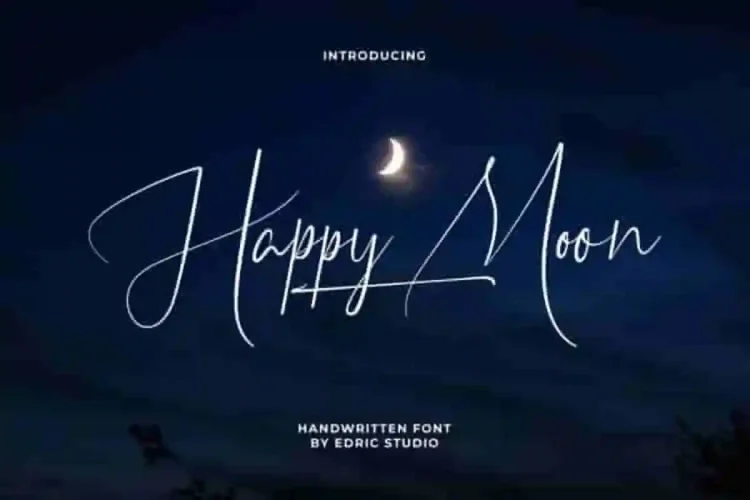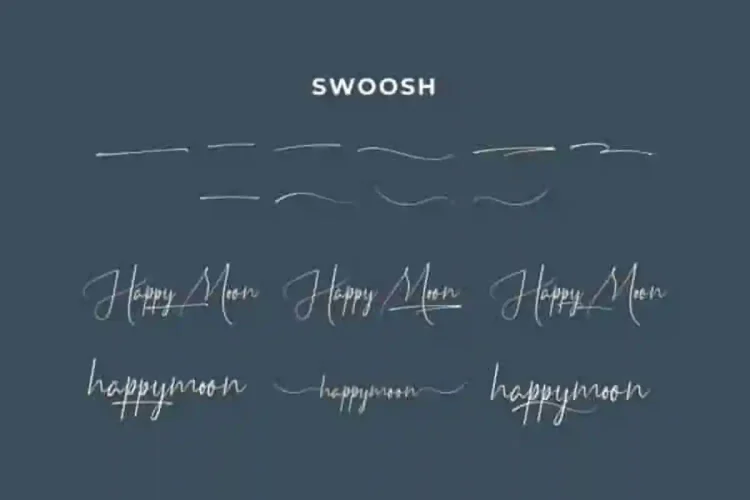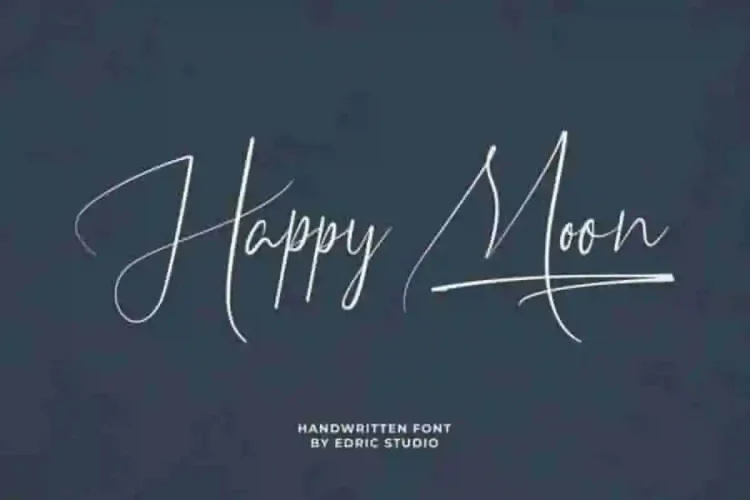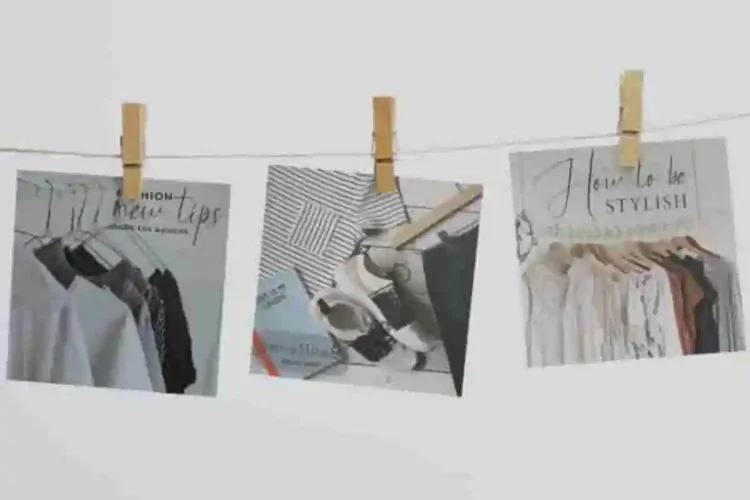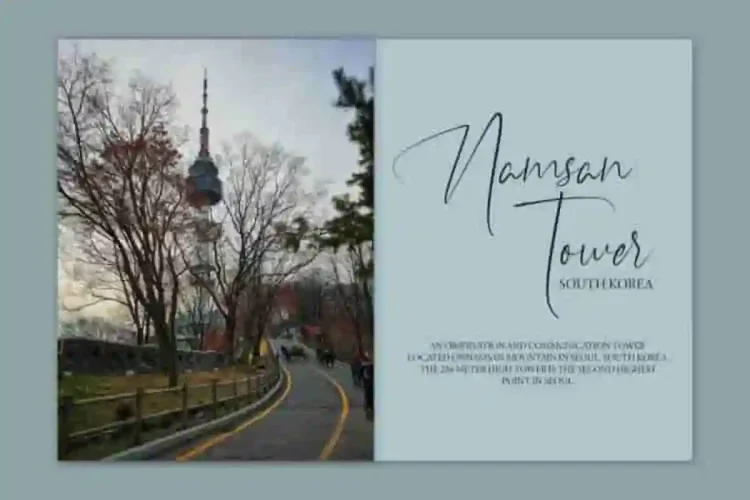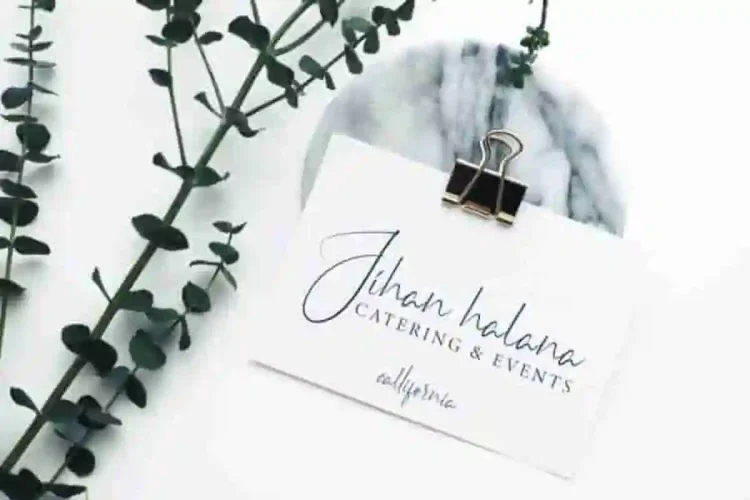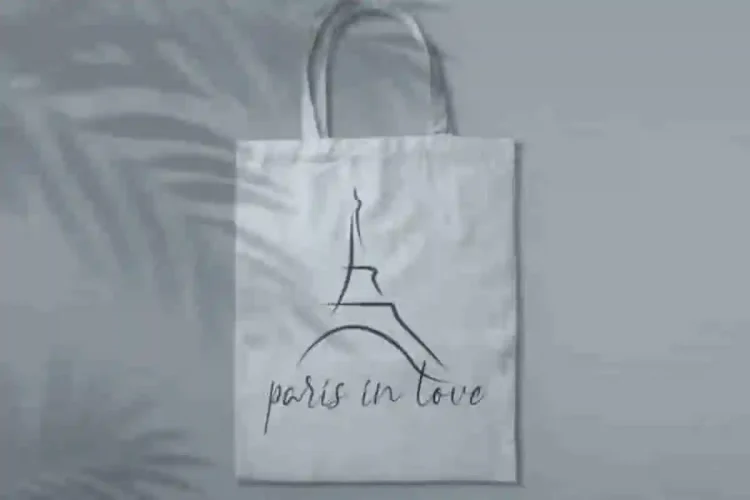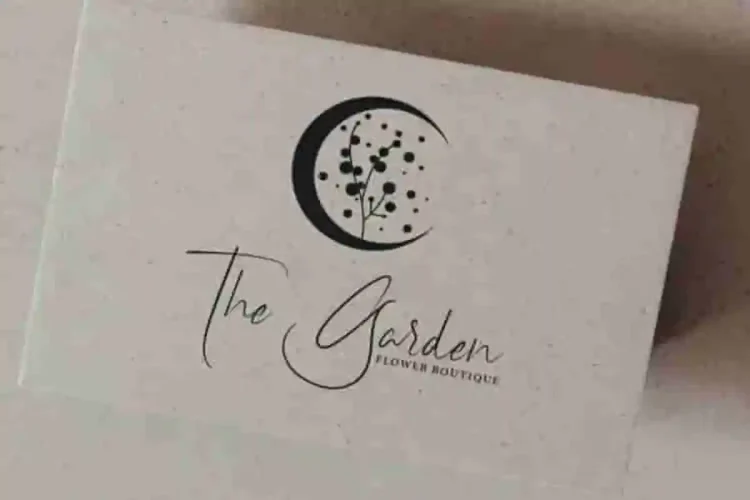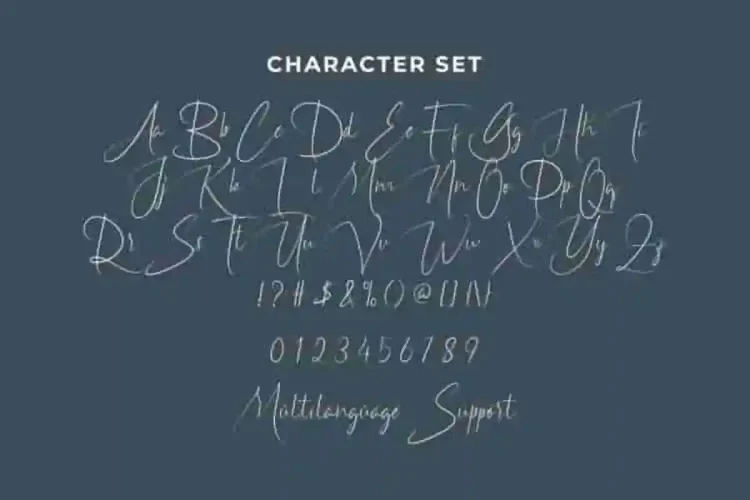
Happy Moon Signature Font
Happy Moon Signature Font is a stylish signature font script with elegant handwriting style, handcrafted from our Studio here in Indonesia. With its elegant pen-inspired strokes, clean spacing, and smooth kerning. This versatile typeface is perfect for designers seeking a refined, signature-style script that adds personality and charm.
Happy Moon Signature Font will be great for any projects (with extended license) including : branding, logo, stationery, business card, signage, flyer, brochure etc. Almost all industries will be match for this typeface: wedding, events, real estate, architect, law firm, florist, gardening, makeup artist, travel, hotel, musician etc.